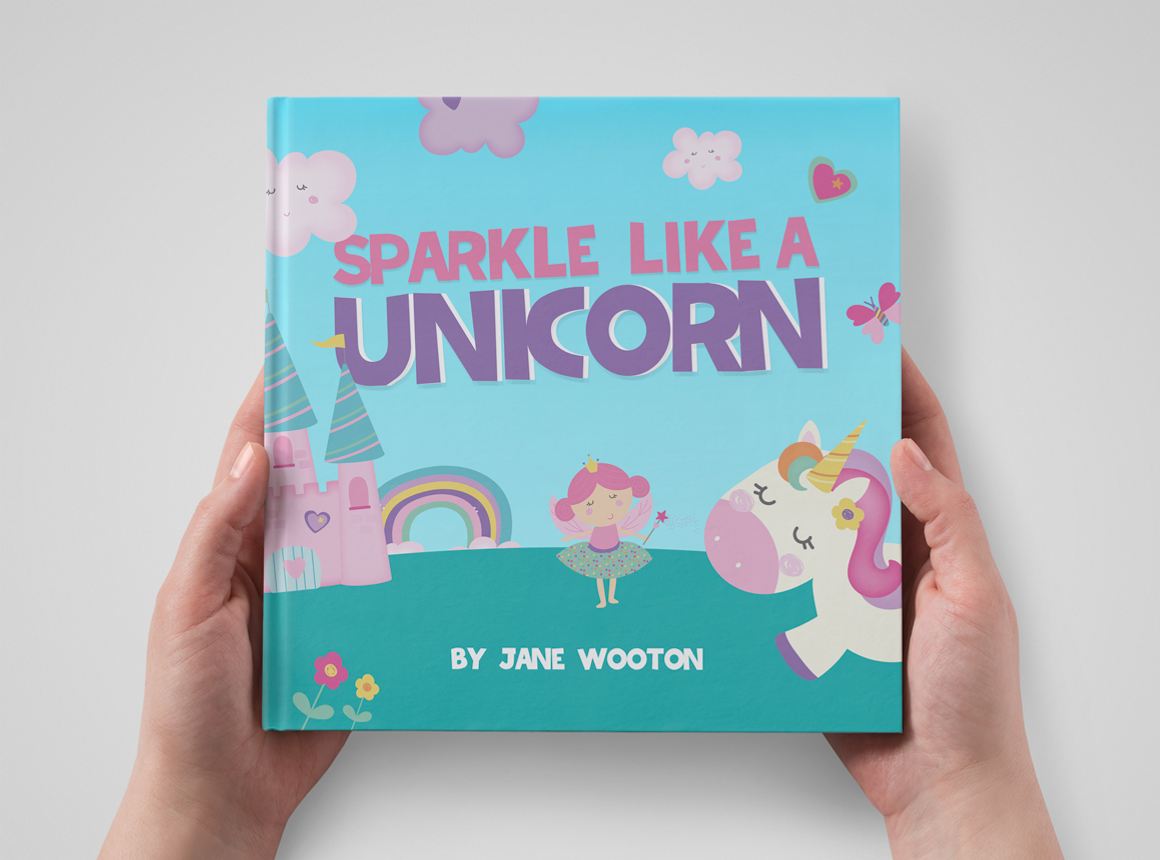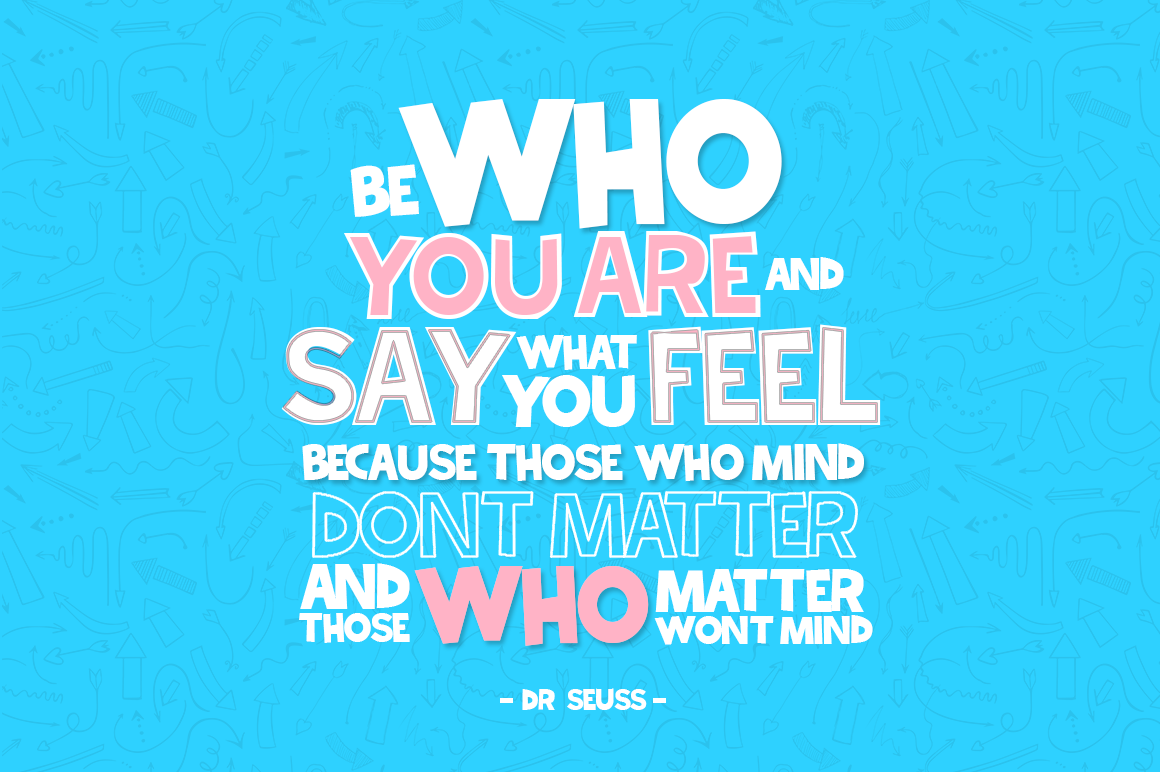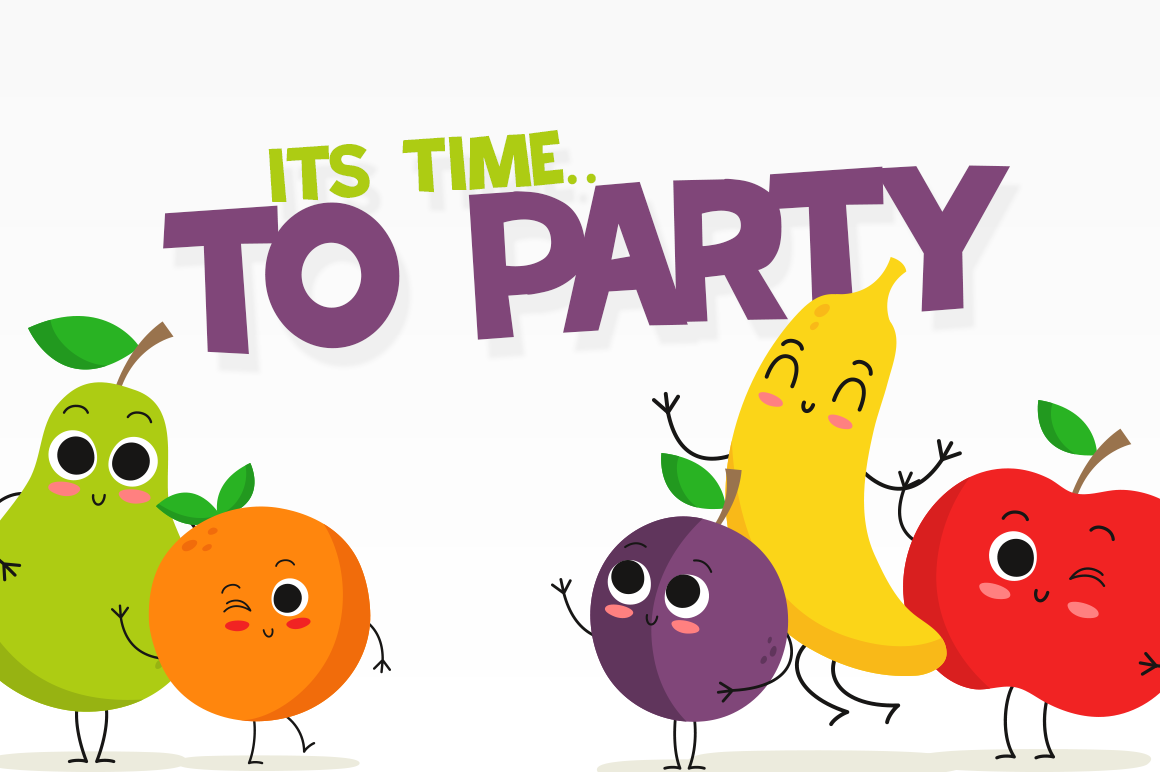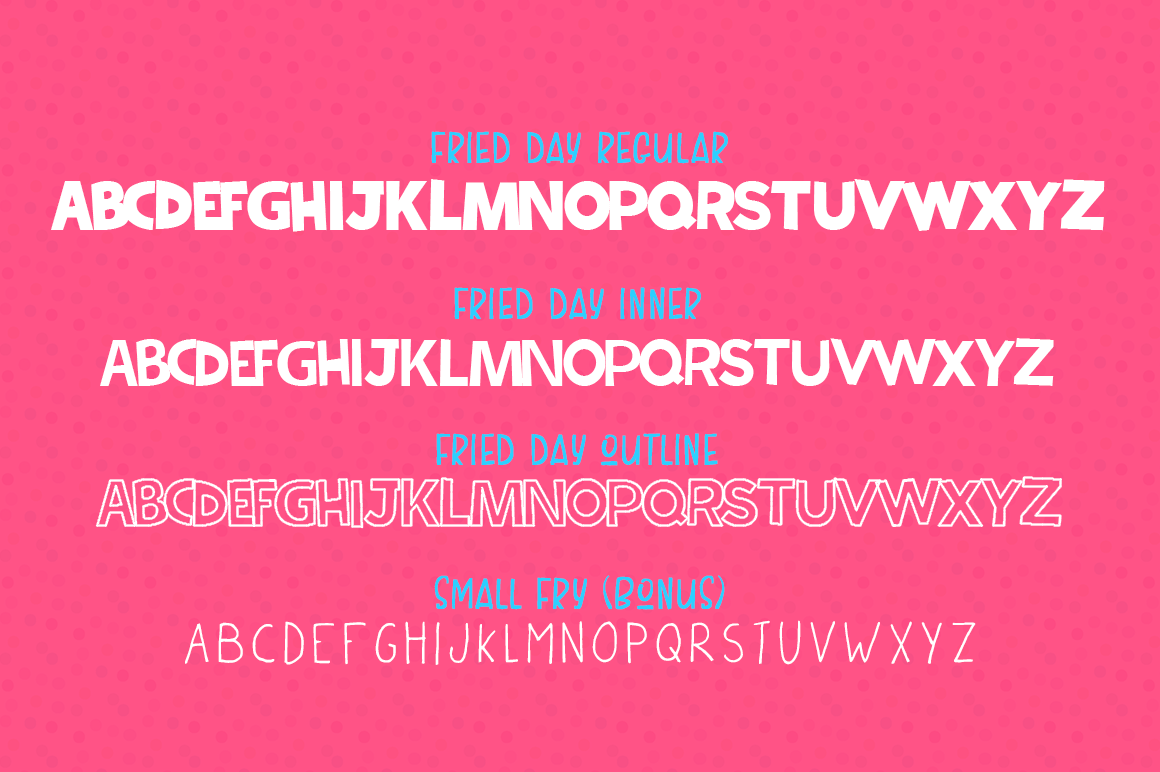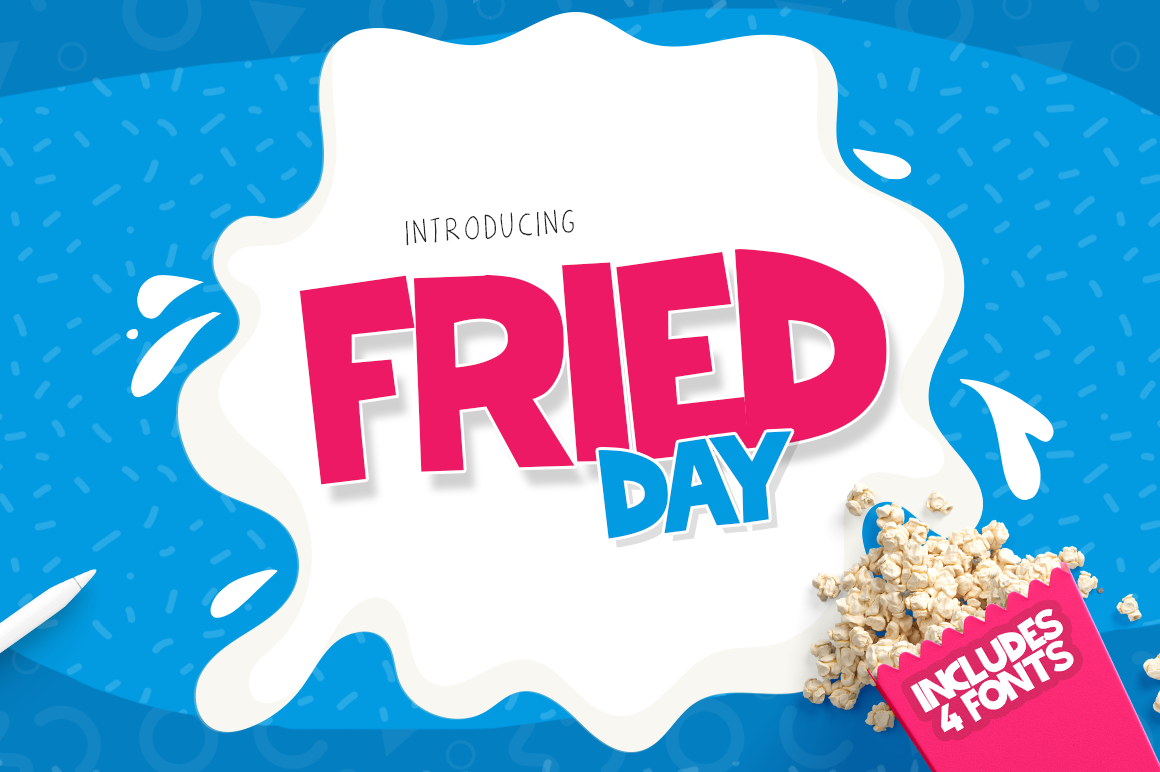
Fried Day Font Family (4 Font Set)
This Fried Day Font Family is perfect for fast food restaurant branding, fried chicken chain materials, casual dining establishments, food truck graphics, crispy snack packaging, comfort food promotions, weekend dining campaigns, casual eatery signage, golden crispy product labels, and indulgent food communications.
What makes this Fried Day Font Family exciting is its crispy satisfaction that captures the golden deliciousness and comfort food appeal of perfectly fried culinary excellence. The font family features warm letterforms with crispy characteristics that convey golden satisfaction, comfort food authenticity, and indulgent dining pleasure. Its comfort character and fried-inspired design make it ideal for brands seeking to communicate culinary satisfaction, comfort food excellence, and crispy golden quality in food service and restaurant markets.
The Fried Day Font Family includes multiple weights and styles with comfort alternates, crispy variants, and golden flourishes. This comprehensive comfort food font family provides designers with satisfying typographic tools to create delicious compositions while maintaining the crispy character essential for food service brands and comfort dining communications.
Restaurant chains and comfort food businesses consistently choose Fried Day Font Family Free Download for projects requiring authentic comfort food appeal and crispy culinary credibility. This font family's distinctive golden character perfectly captures the comfort food satisfaction and crispy excellence that resonate with audiences who appreciate indulgent dining, comfort cuisine, and brands that embody golden fried perfection and satisfying food experiences.
The satisfying construction of Fried Day Font Family showcases warmly designed letterforms with comfort proportions that ensure exceptional appeal across all food service applications. Its crispy appearance and golden character create memorable impressions while maintaining the readability necessary for effective comfort food communication and restaurant materials.
Professional designers appreciate how Fried Day Font Family brings immediate comfort food authenticity and crispy appeal to brand communications. The font family's indulgent nature allows organizations to communicate culinary satisfaction and comfort food excellence while maintaining the professional quality necessary for effective positioning in food service and casual dining markets.
The irresistible appeal of Fried Day Font Family makes it particularly effective for brands emphasizing comfort food, crispy satisfaction, and indulgent dining experiences. Its golden character resonates strongly with audiences who appreciate comfort cuisine, satisfying food, and brands that represent the crispy perfection and golden deliciousness of comfort food excellence.
Whether developing branding for fast food chains or creating materials for comfort food restaurants, Fried Day Font Family Free Download provides the satisfying typographic foundation that food brands need to communicate their comfort food excellence, crispy satisfaction, and the golden deliciousness that defines comfort dining and satisfying culinary achievement.